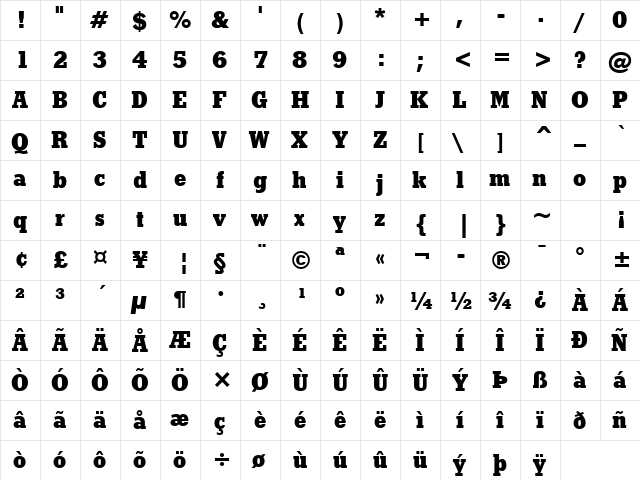
Stymie Extra Bold
Design Context for Stymie Typeface
Stymie takes a measured approach to typography — its balanced proportions and neutral character make it a reliable workhorse for both digital and print work. The heavy weight commands attention and anchors typographic hierarchies.
Pro Tip: Use Stymie in both headline and body roles to test its range before committing to a single application.